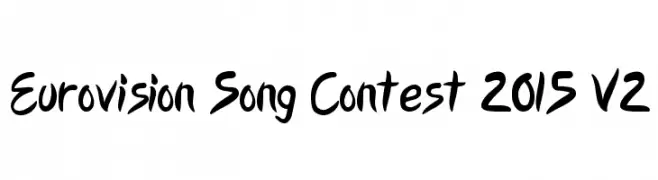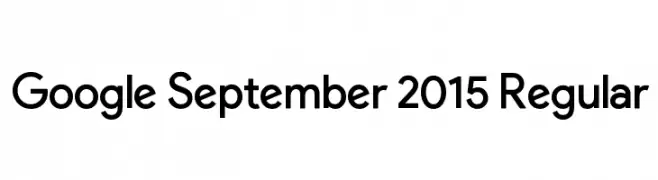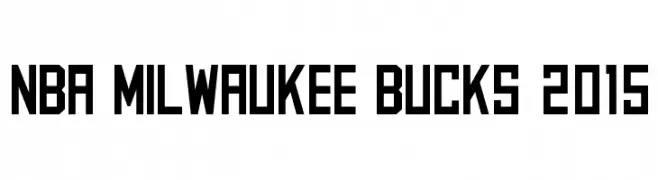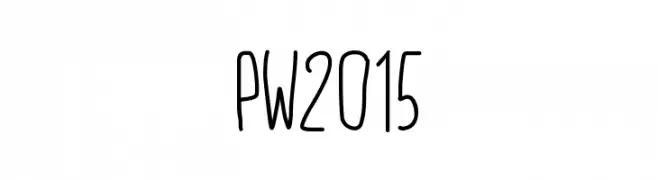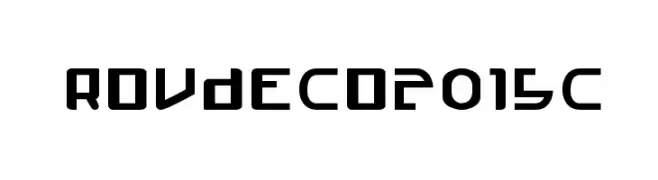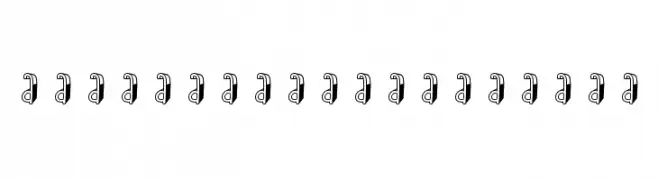
A bold, futuristic font with geometric shapes and rounded edges.
A bold, futuristic font with geometric shapes and a modern, industrial aesthetic.
A futuristic, geometric font with sharp edges and a modern aesthetic.
A bold, expressive handwritten font with dynamic brush strokes.
A bold, modern font with clean, geometric shapes and strong impact.
A bold, italicized font with a futuristic and angular design.
A bold, geometric font with a modern and slightly futuristic style.
A bold, futuristic font with geometric shapes and sharp angles.
A futuristic, geometric font with sharp angles and clean lines.
A classic serif font with modern elegance and balanced proportions.
A modern, geometric font with a futuristic and sleek design.
A futuristic, geometric font with bold, rounded letterforms and unique cutouts.
A futuristic, angular italic font with a dynamic and high-tech aesthetic.
A bold, futuristic font with a geometric and angular design.
A bold, futuristic font with angular, geometric letterforms.
A dynamic, futuristic italic font with angular, geometric characters.
A futuristic and geometric font with sharp angles and a modern aesthetic.
A futuristic, geometric font with sharp angles and a condensed style.
A bold, futuristic font with a leftward slant and angular design.
A futuristic, bold font with geometric shapes and sharp angles.
A bold, condensed italic font with a modern, dynamic style.
A bold, expanded, and italicized font with a futuristic and dynamic style.
A bold, italicized font with a futuristic and dynamic design.
A futuristic, bold font with geometric and angular design.
A bold, italicized font with a futuristic and dynamic style.
A bold, futuristic font with geometric, angular characters.
A bold, italicized font with a futuristic and dynamic style.
A bold, geometric, and condensed font with a futuristic style.
A modern, dotted font with a playful and decorative style.
A bold, geometric font with a modern, futuristic style.
A bold, geometric font with a modern and impactful style.
A classic serif font with an oblique slant and medium weight, ideal for elegant and formal designs.
A modern, geometric font with a futuristic and streamlined design.
A modern, geometric font with clean lines and a structured appearance.
A sleek, italicized font with a futuristic and dynamic style.